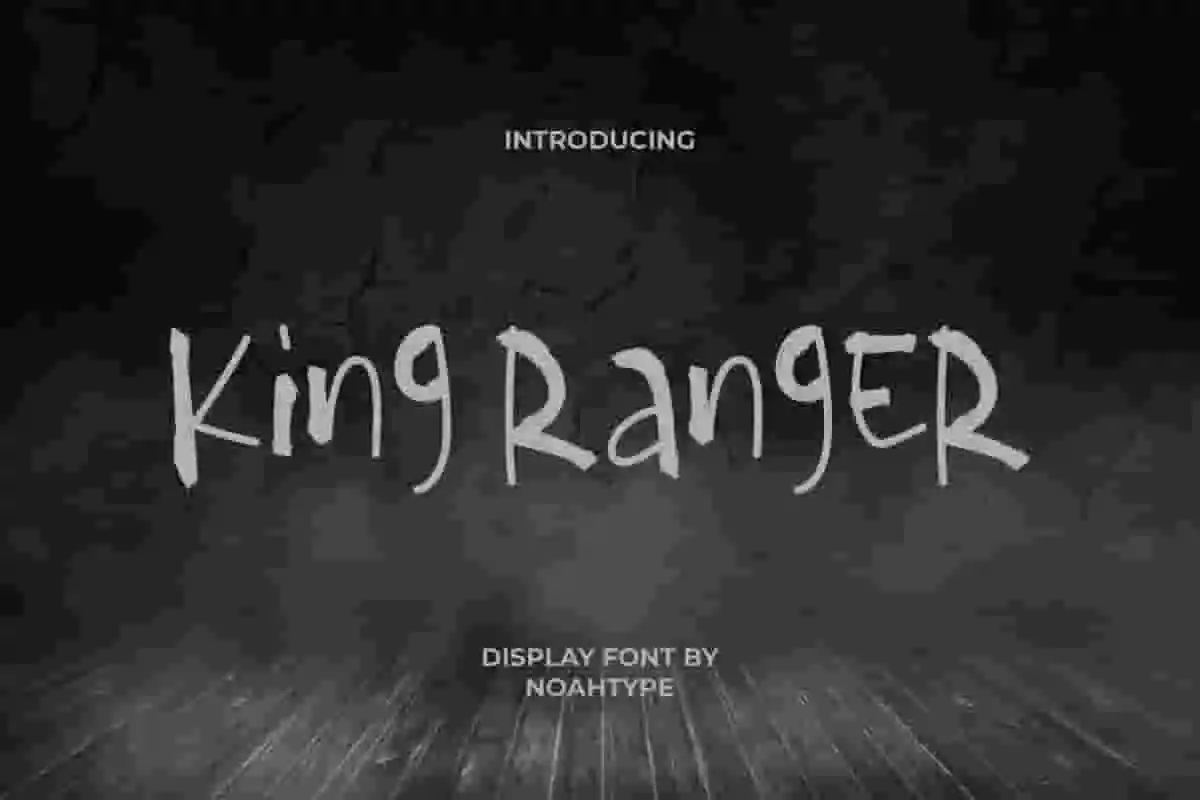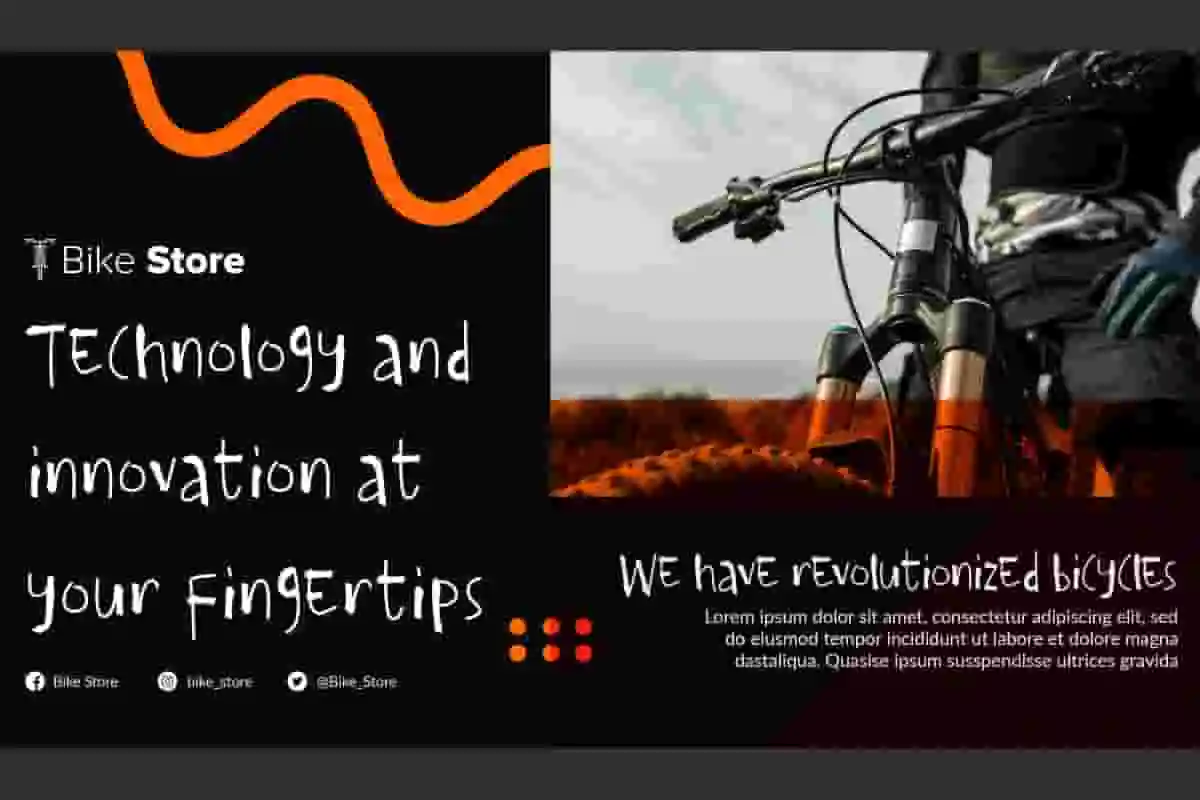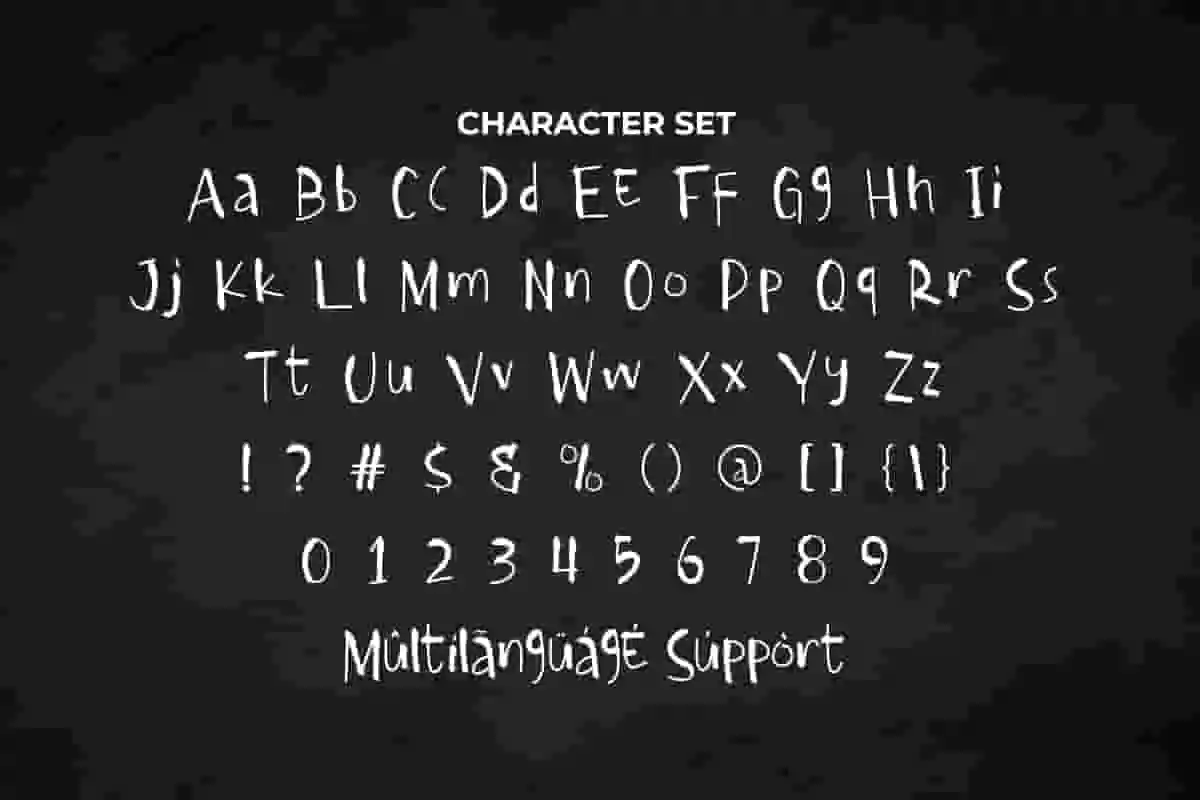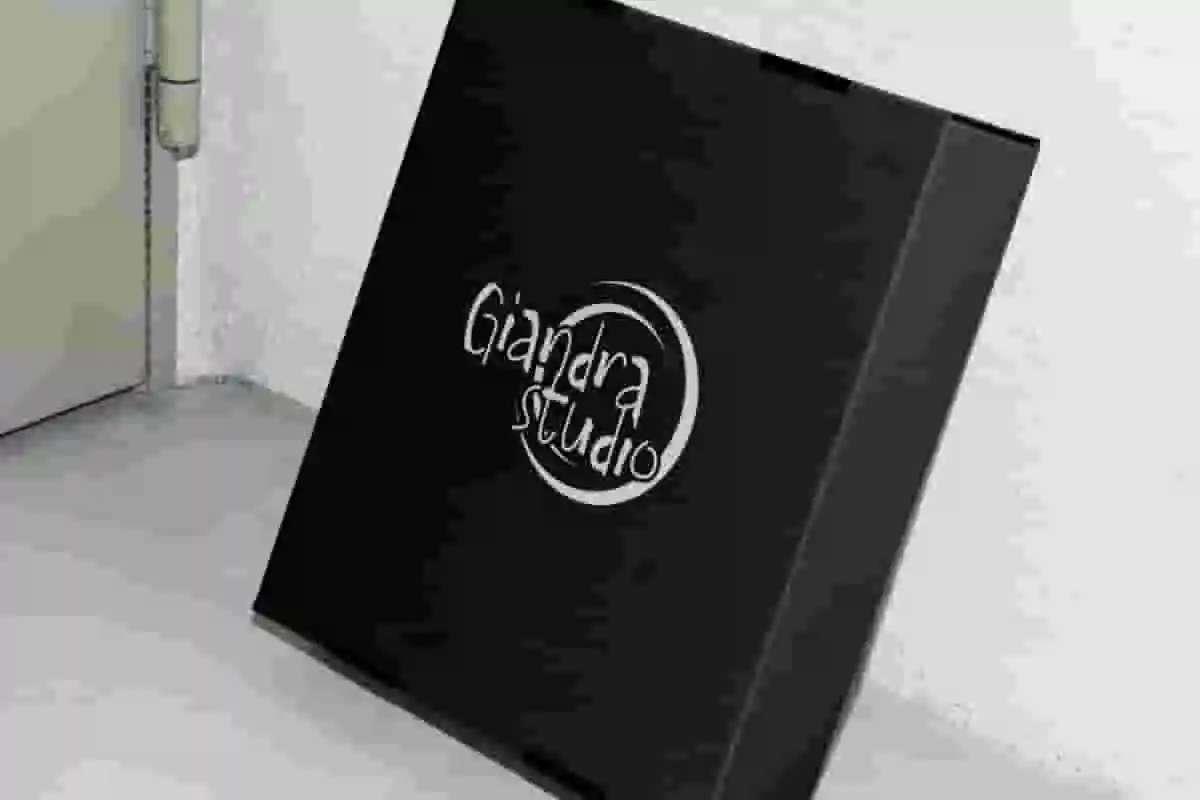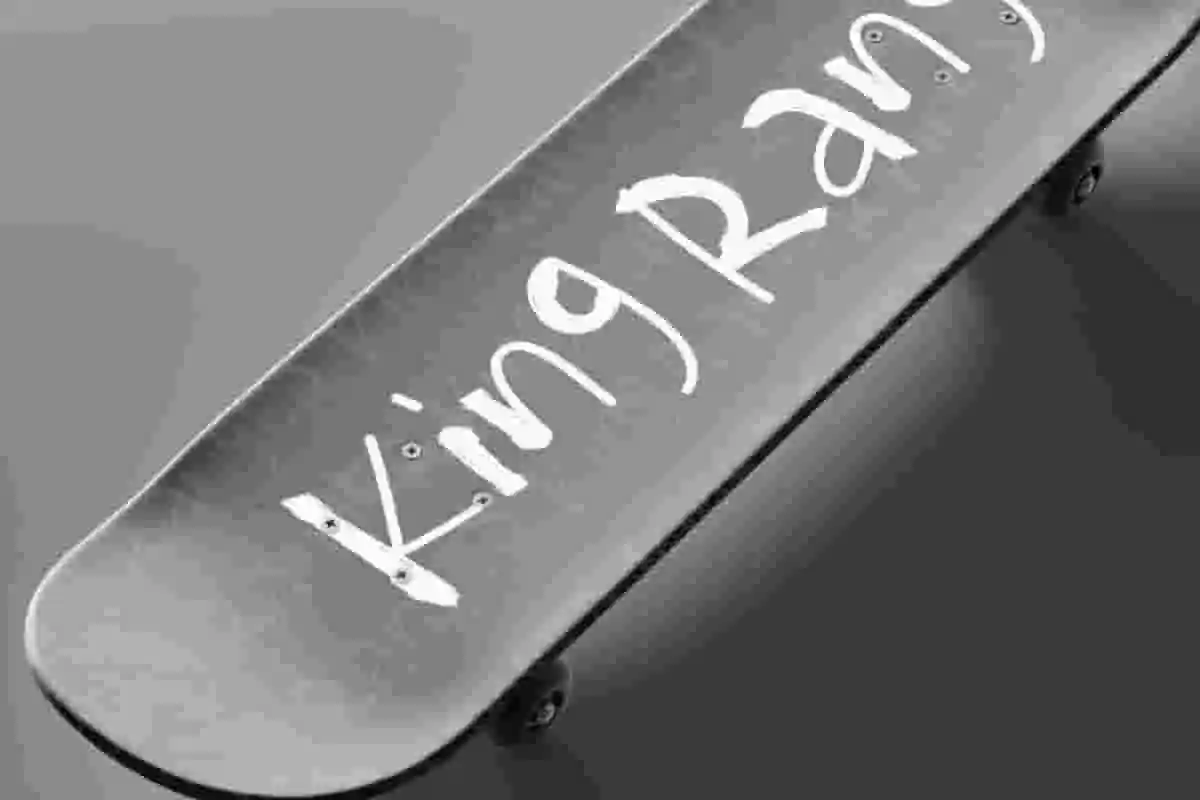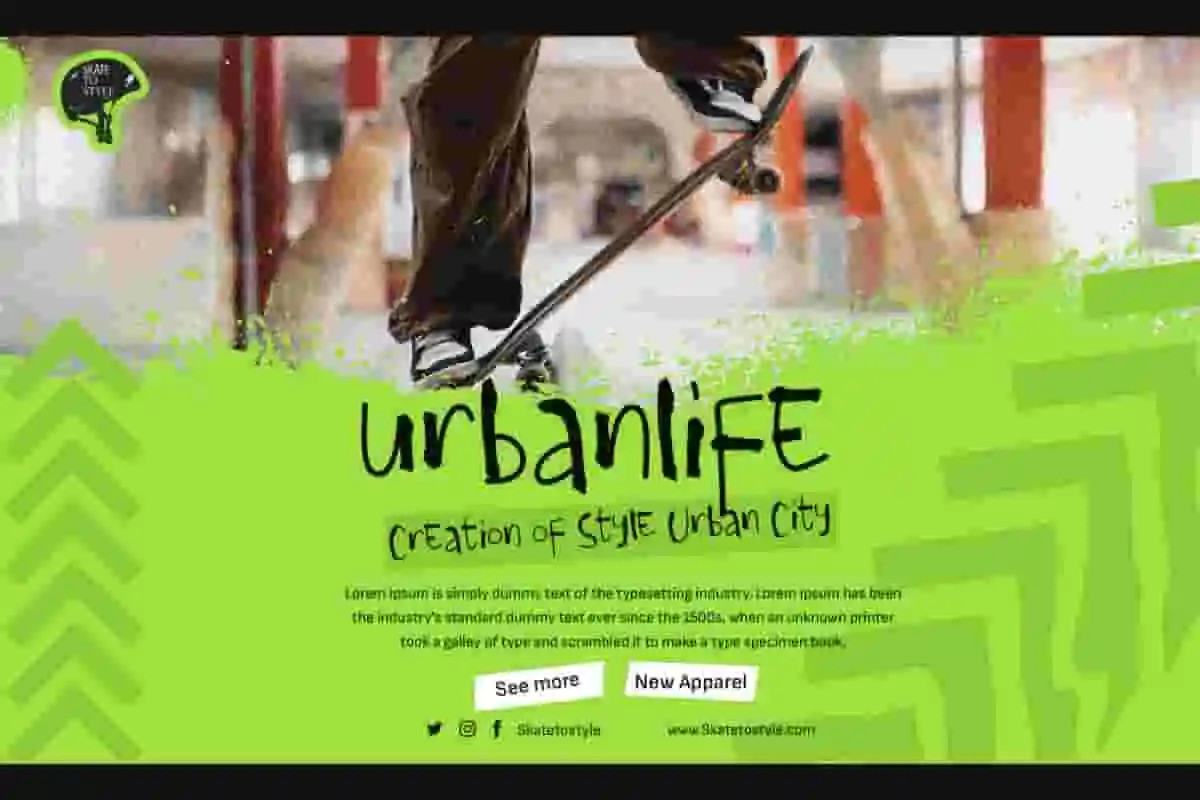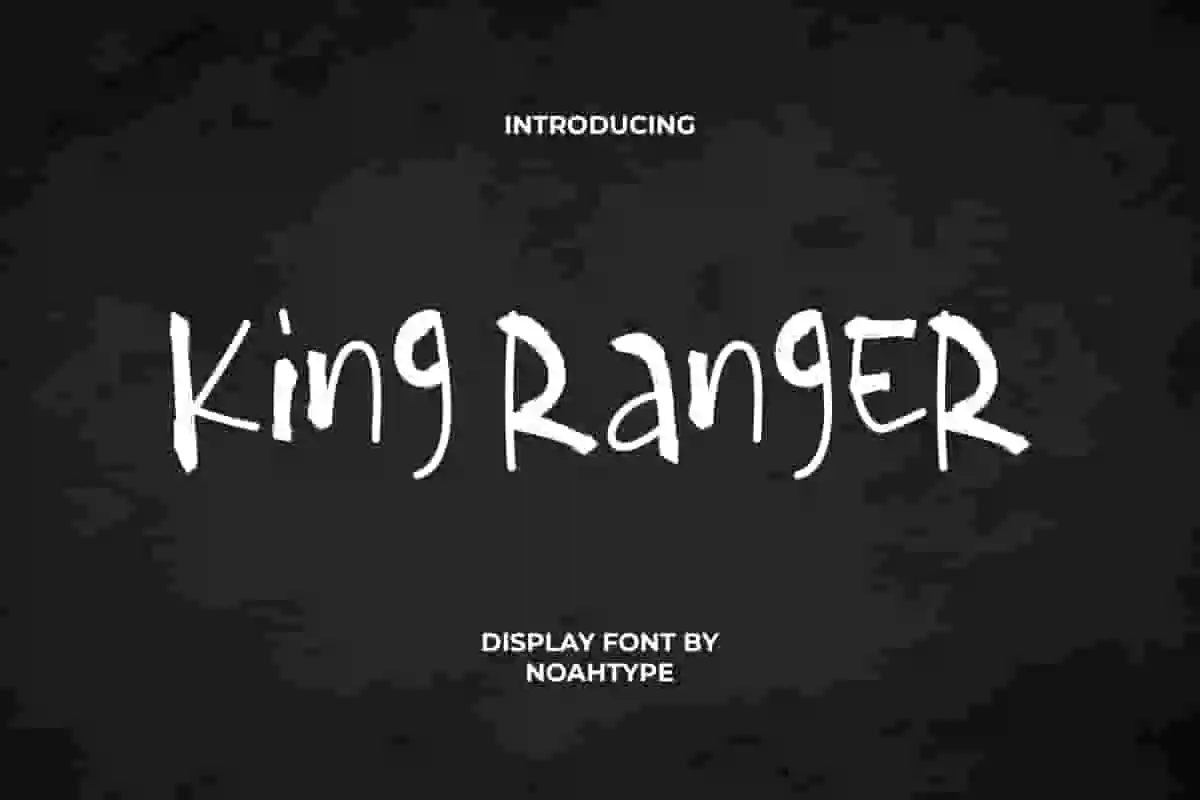
King Ranger Font is a mysterious spooky brush display font by NoahType. The letter characters in this font are made irregularly, leaving an uncomfortable feeling because they are scary. It will be good for any designs, such as brand image, custom design, invitation, label, marketing material, menu, poster, product packaging, quotes, signage, web, and many more!
King Ranger Font includes a complete set of Uppercase and Lowercase Basic Characters, Numerals, Punctuation, and Symbol. The characters of this font will give impressive look and also a perfect choice for many industries, such as accessories, advertising, cafe, event or festival, fashion, game, movie, printing, publishing, etc.